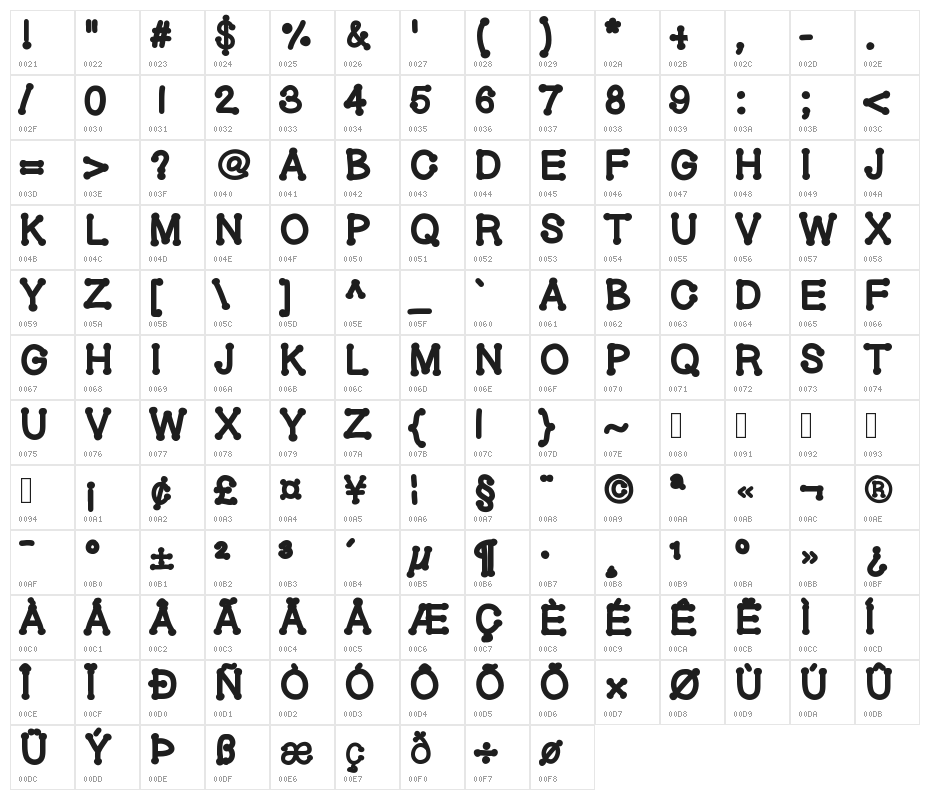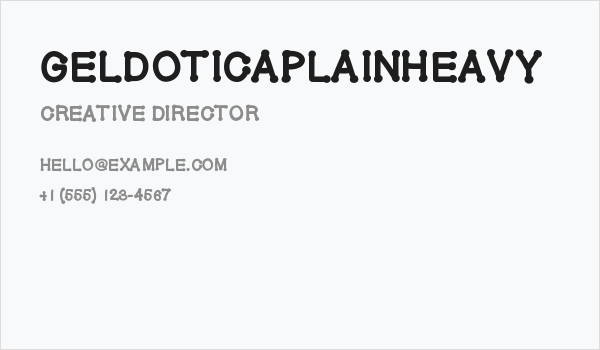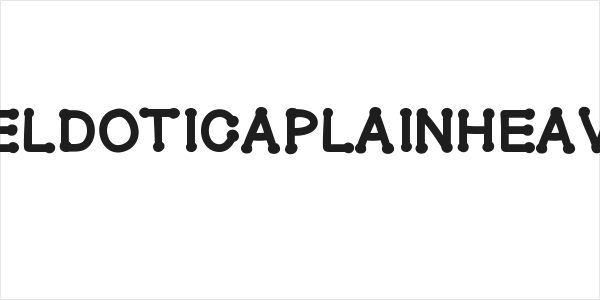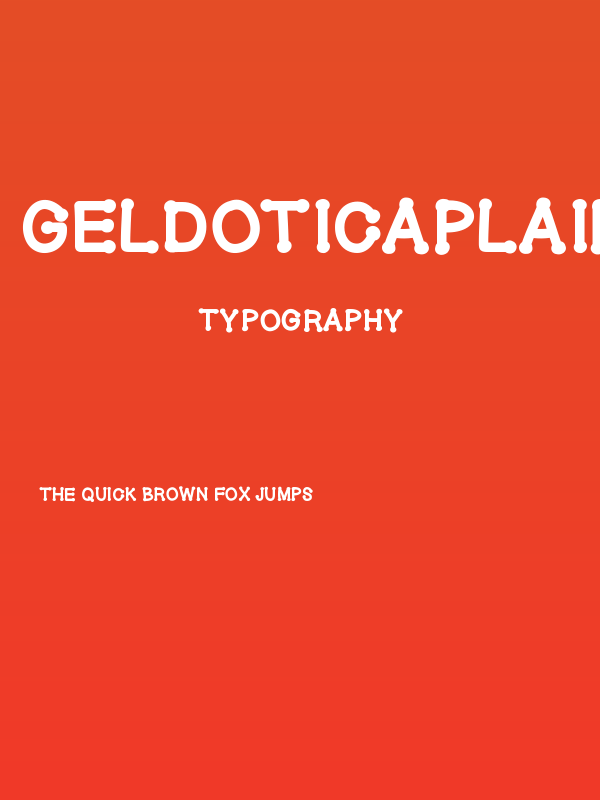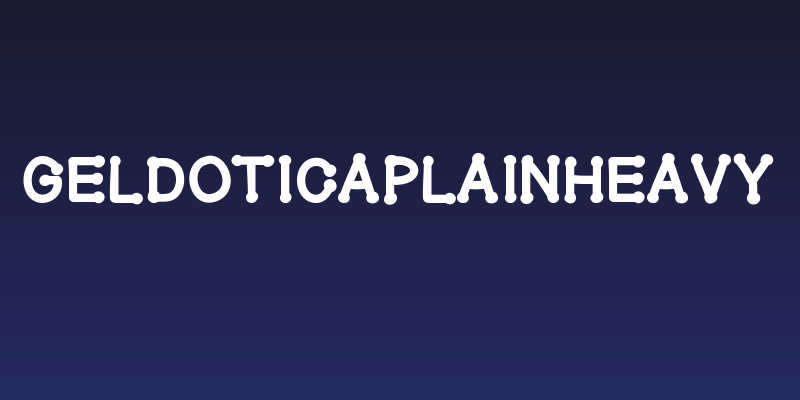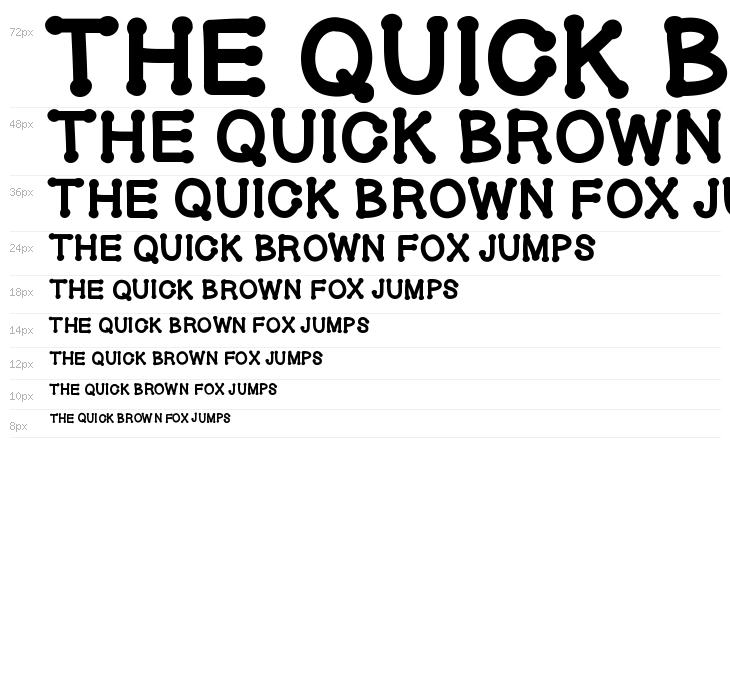
GelDoticaPlainHeavy Font
GelDoticaPlainHeavy Description
This font features a playful and bold design with rounded, bubble-like characters that give it a unique and eye-catching appearance. The letters are thick and heavy, providing a strong visual impact. The rounded edges and uniform stroke width contribute to a friendly and approachable feel. The font includes both uppercase and lowercase letters, numerals, and a variety of special characters, making it versatile for different design needs. Its distinct style makes it suitable for projects that require a fun and informal touch.
| Overall Style | Playful, Fun |
| Proposed Projects | Ideal for children's books, playful branding, posters, and social media graphics. |